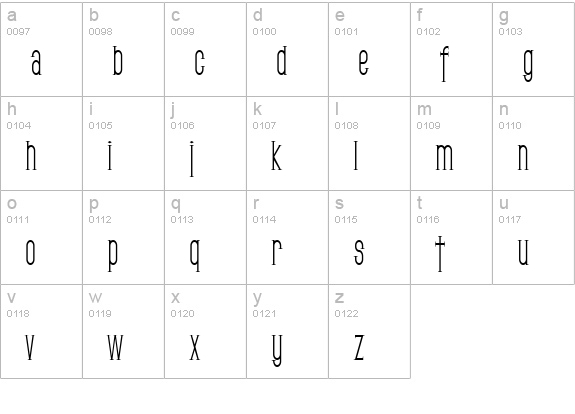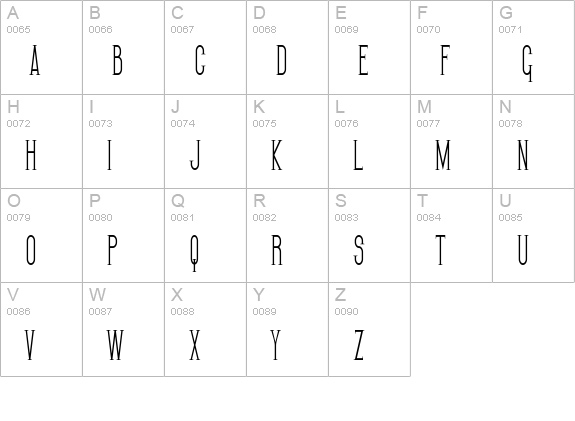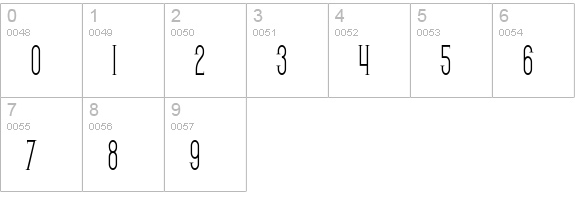
SF Gothican Condensed Font Details
SF Gothican Condensed is a distinctive, condensed-width variant in the SF typeface family \xE2\x80\x94 well suited to design and typography projects.
Introducing SF Gothican Condensed, an epitome of elegance and sophistication in the world of typography. This remarkable font effortlessly captures the essence of gothic aesthetics with a modern twist, offering a captivating visual experience that is both timeless and contemporary. SF Gothican Condensed boasts an exquisite balance between sharp, elongated lines and delicate curves, creating a harmonious interplay that is visually striking. Its condensed form adds a touch of sleekness and versatility, making it the perfect choice for a wide range of design projects. With its distinct character and unique charm, SF Gothican Condensed stands out in any context, be it for branding, editorial design, signage, or digital interfaces. Its versatility truly knows no bounds, allowing designers to explore endless creative possibilities. What makes SF Gothican Condensed even more remarkable is its availability as a free font for download. FontsMarket.com proudly offers this exceptional typeface to designers, creatives, and typography enthusiasts alike, allowing them to explore its captivating potential without any restrictions. Whether you are a seasoned professional or an aspiring designer, SF Gothican Condensed invites you to elevate your creations with its timeless elegance and bold presence. Embrace the power of this font and let it breathe life into your projects, setting them apart with its unique character and undeniable allure. Experience the beauty and versatility of SF Gothican Condensed today, freely available for download at FontsMarket.com. Unleash your creativity and embark on a journey that seamlessly blends tradition and innovation, all encapsulated in the mesmerizing contours of this extraordinary font.